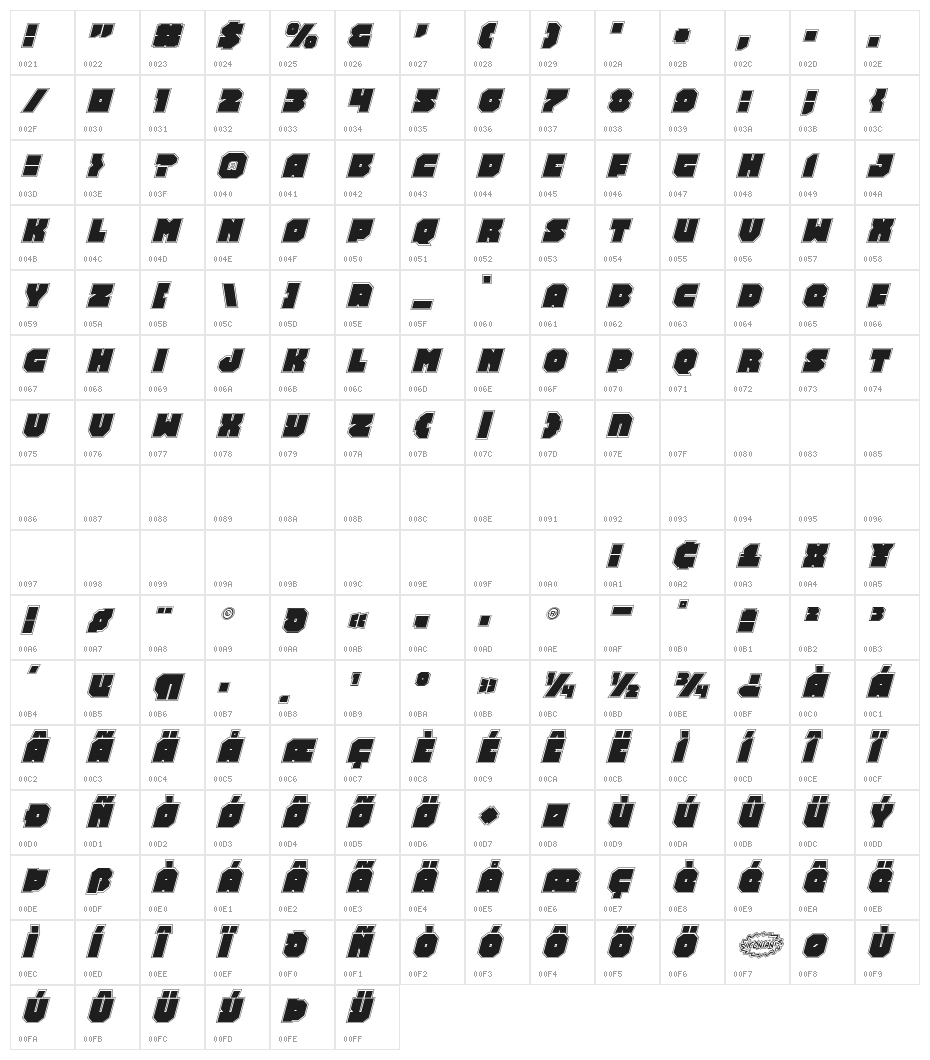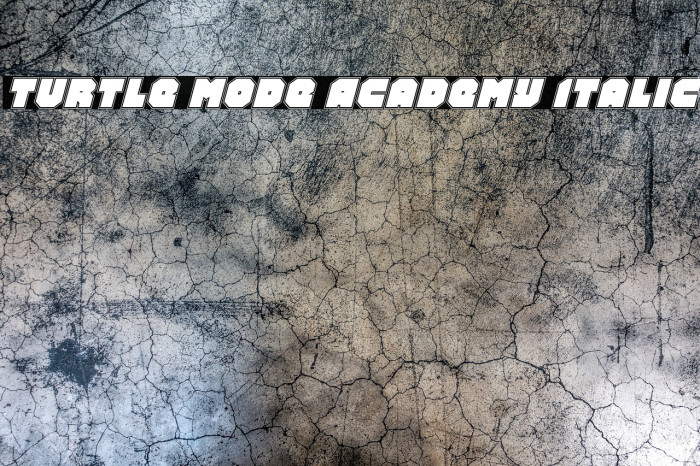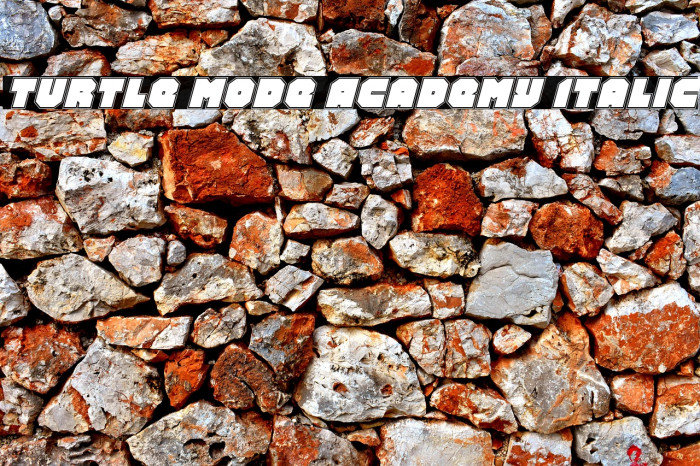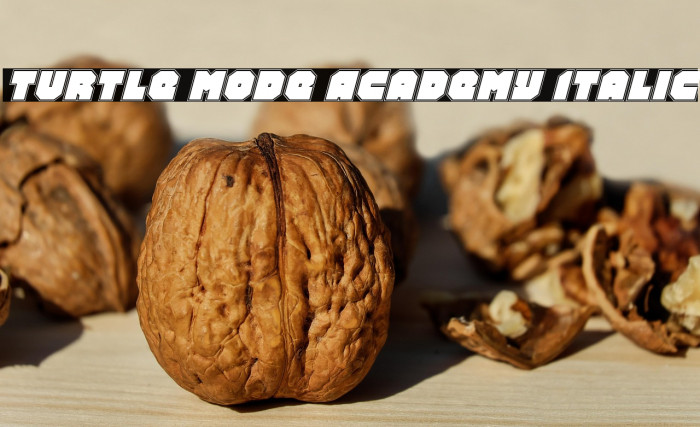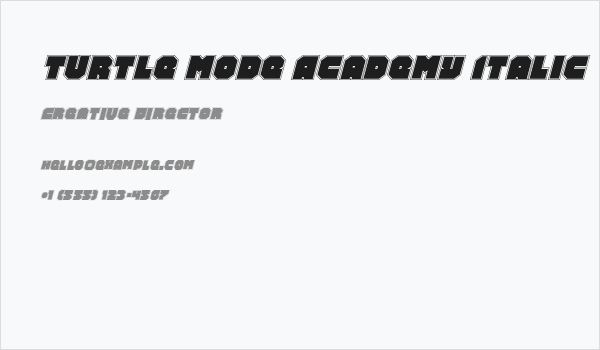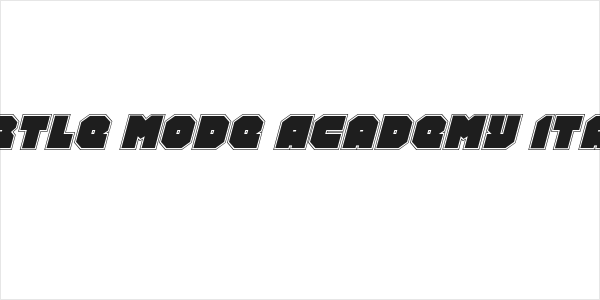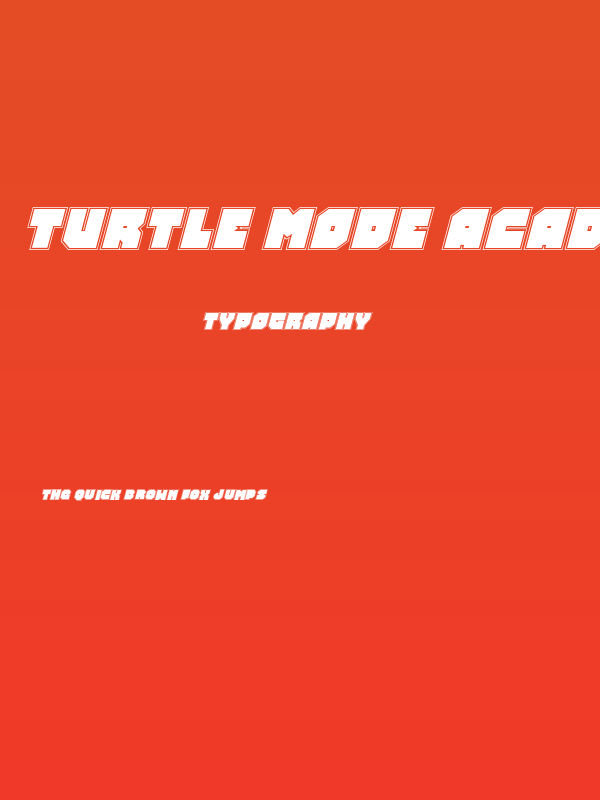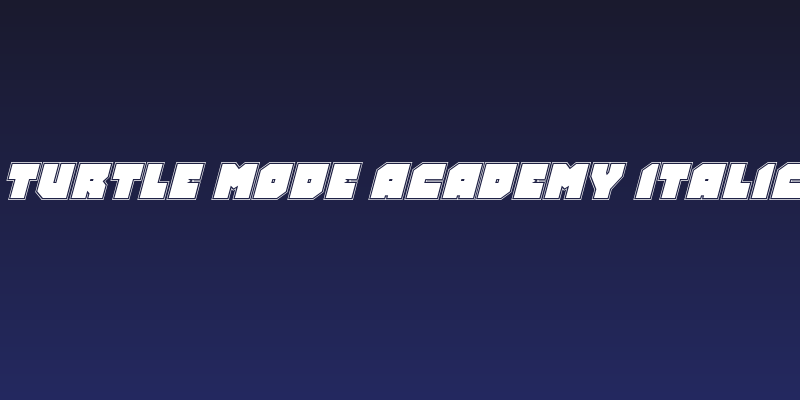
Turtle Mode Academy Italic Font
Turtle Mode Academy Italic Description
This font features a bold, geometric design with a strong presence. Each character is outlined, creating a striking contrast against the background. The letters are uniformly slanted, giving an italicized appearance that adds dynamism and movement. The uppercase and lowercase letters maintain a consistent style, with sharp angles and a blocky structure. The numbers and special characters follow the same bold and angular design, ensuring uniformity across all elements. This font is ideal for projects that require a modern and impactful look.
| Proposed Projects | Ideal for sports branding, video game titles, posters, and dynamic logos. |